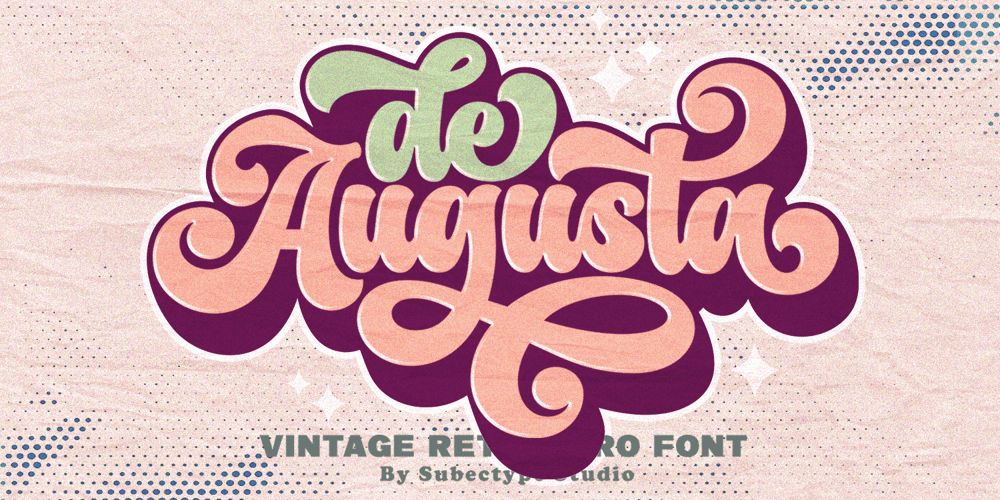
De Augusta Font Family was designed by Rangga Subekti and published by Subectype. De Augusta contains 1 styles and family package options. De Augusta is a Vintage retro font. Inspired from retro typography and lettering in the 70’s and 80’s combine with bold typography style. This font perfect for vintage and retro design, badge, logos,t-shirt, poster, branding, packaging, signage, book coverand so much more!Whats Include: Multilingual Support Thankyou Subectype Studio